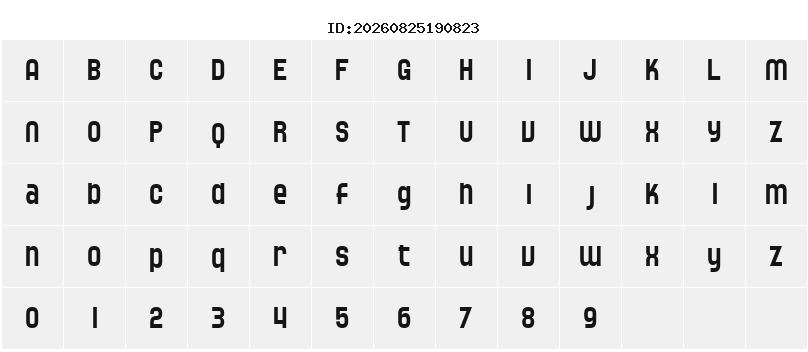
SF Speedwaystar Condensed Preview
• Font Name: SF Speedwaystar Condensed
• Full Font Name: SF Speedwaystar Condensed
• PostScript Name: SFSpeedwaystarCondensed
About SF Speedwaystar Condensed.ttf
SF Speedwaystar Condensed.ttf is a modern, elegant sans-serif font designed for ultimate readability and visual harmony. Perfect for branding, headlines, web design, and print materials.